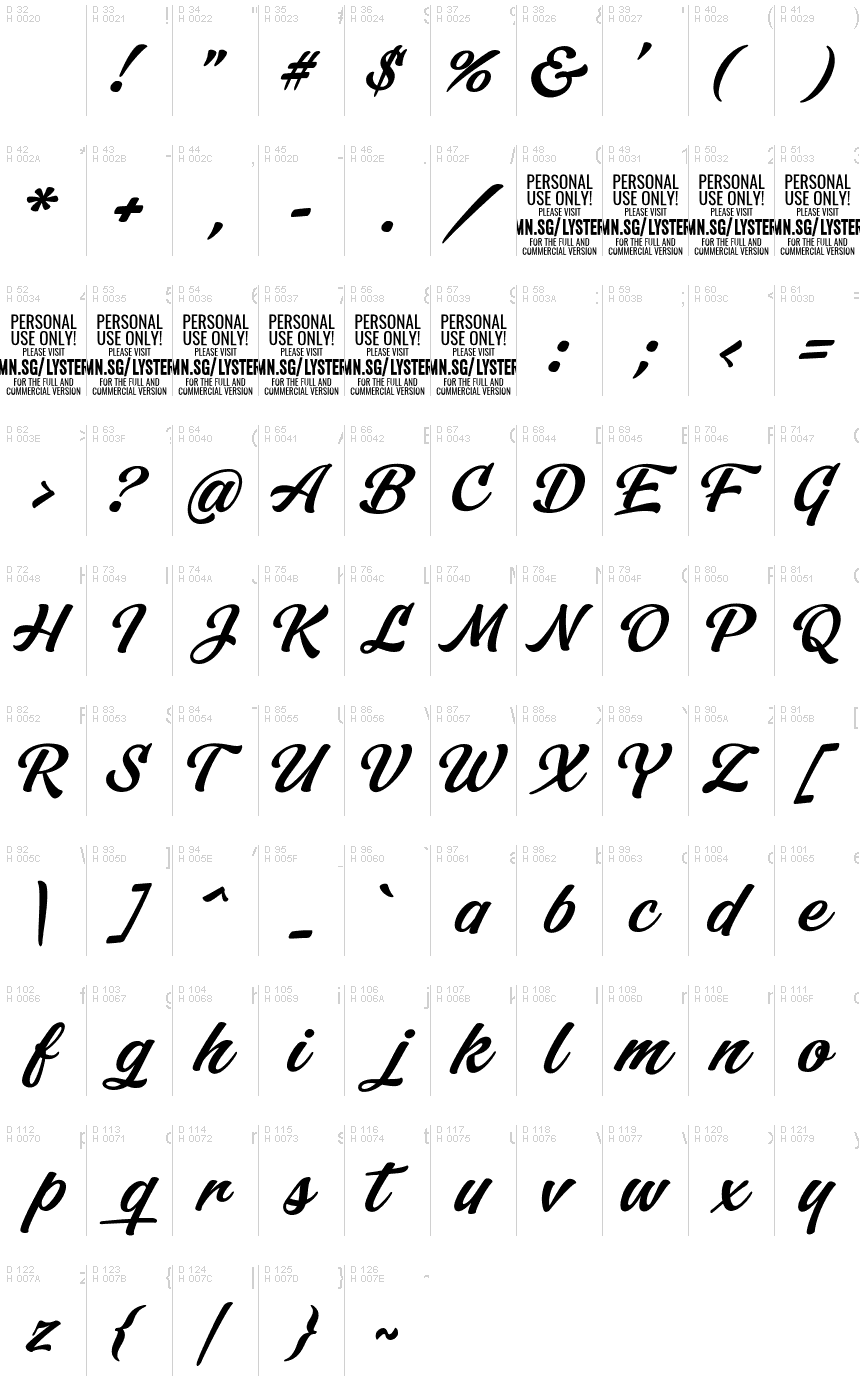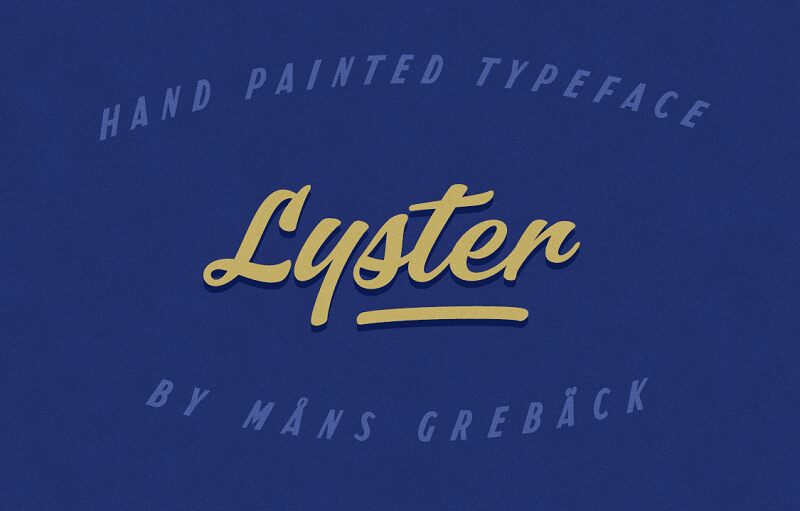
Lyster, the retro calligraphy font designed by Mans Greback, is a versatile typeface suitable for a range of projects. With its fluid lines and vintage feel, Lyster is perfect for creating elegant wedding invitations or adding a touch of sophistication to branding materials. The semi-bold font style makes it easy to read at larger sizes while still maintaining its unique character. Whether you're designing a poster for an event or creating packaging for a high-end product, Lyster's timeless appeal will make your project stand out. Add this beautiful font to your collection today and elevate your designs to the next level!